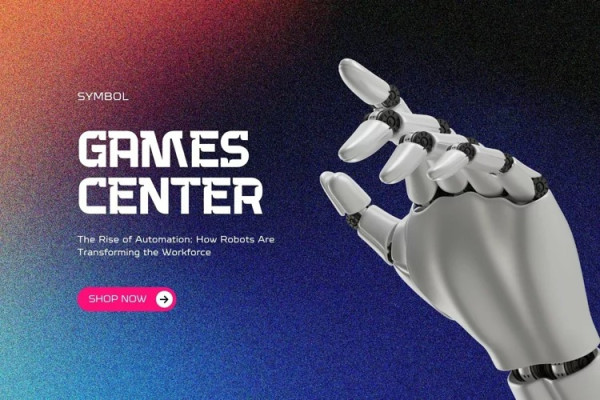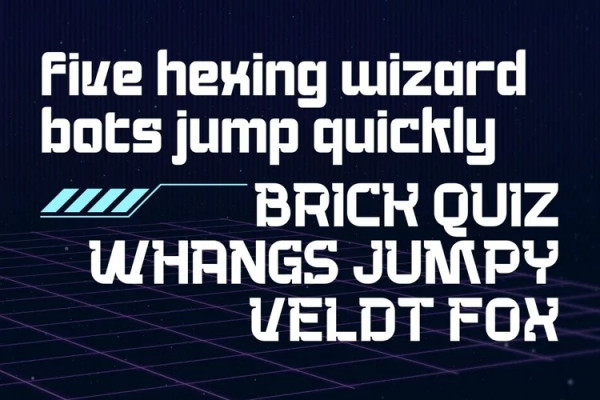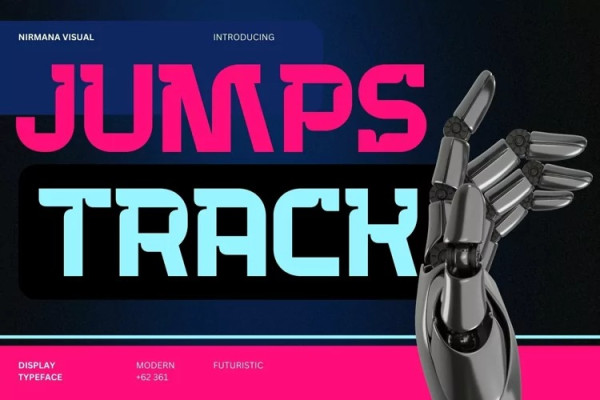
Jumps Track Font
Jumps Track Font – Display font offers beautiful typographic harmony for a diversity of design projects, including logos & branding, social media posts, advertisements & product designs.